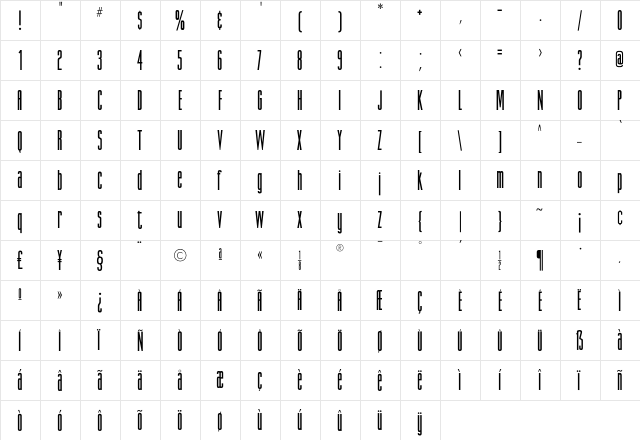
GiottoBold Regular
Design Context for GiottoBold Typeface
GiottoBold takes a measured approach to typography — its balanced proportions and neutral character make it a reliable workhorse for both digital and print work. Its bold stroke weight gives it real presence on the page.